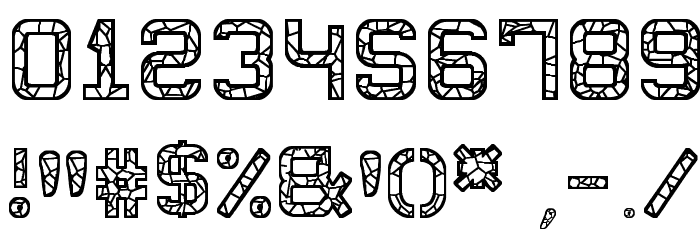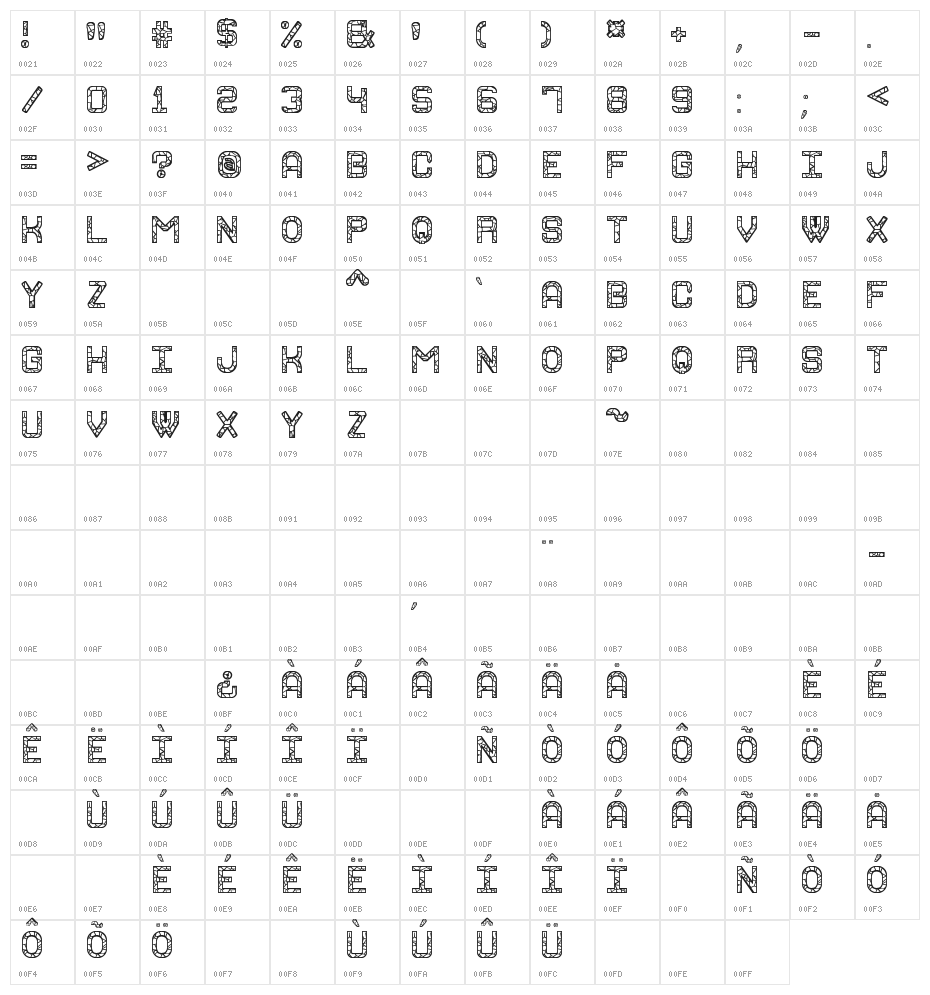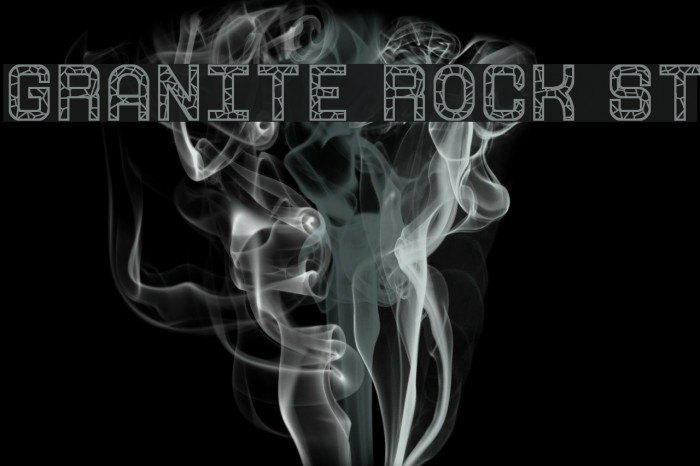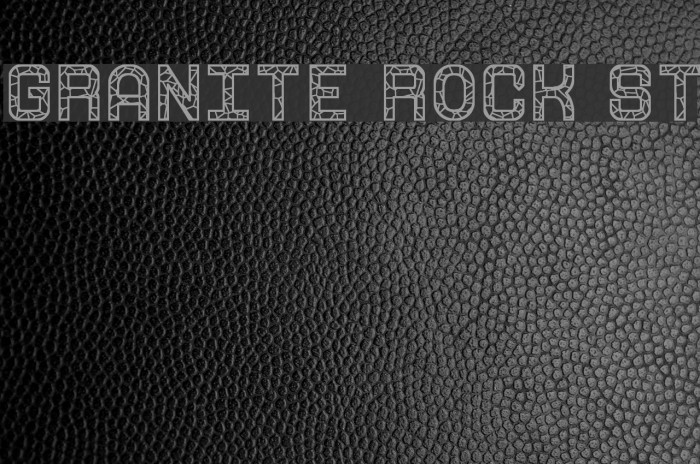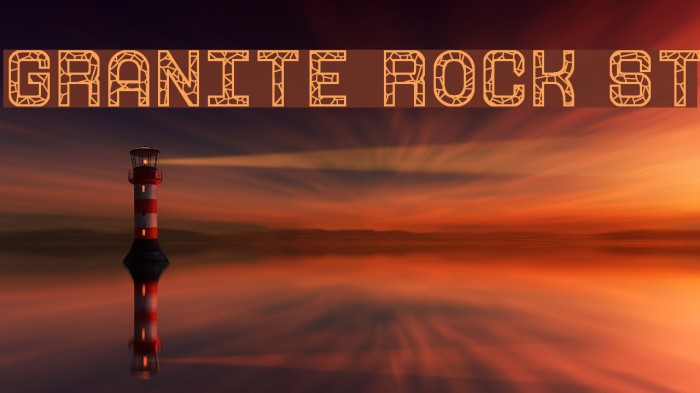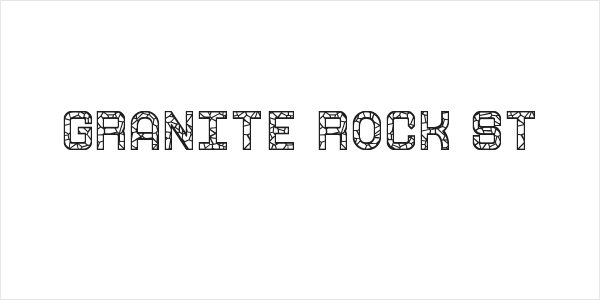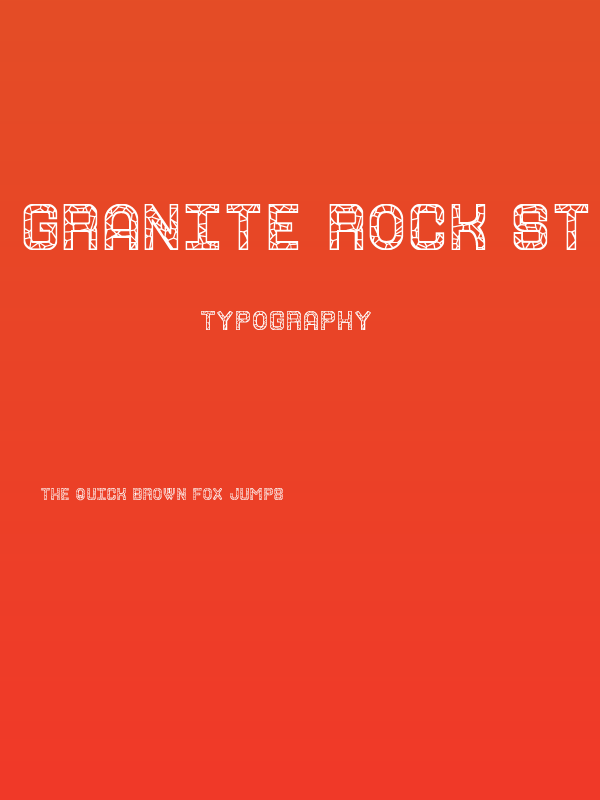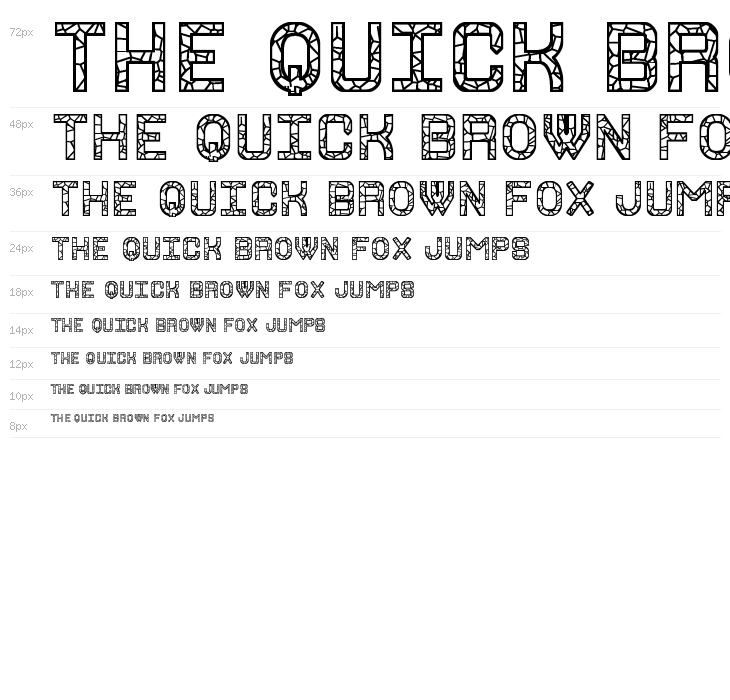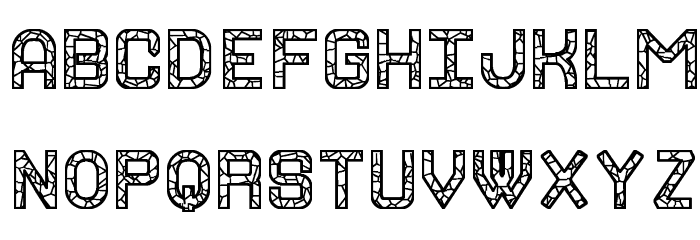
Granite Rock St Font
Granite Rock St Description
This font features a bold, geometric design with a distinctive pattern resembling cracked stone or mosaic tiles. Each character is outlined with a thick black border, filled with irregular shapes that create a textured, fragmented appearance. The uppercase and lowercase letters maintain a consistent style, emphasizing a modern and edgy aesthetic. The numbers and special characters follow the same design principles, ensuring uniformity across the typeface. This font's unique style makes it stand out, ideal for projects that require a strong visual impact.
| Proposed Projects | Ideal for branding, posters, album covers, and any project needing a striking, textured typeface. |